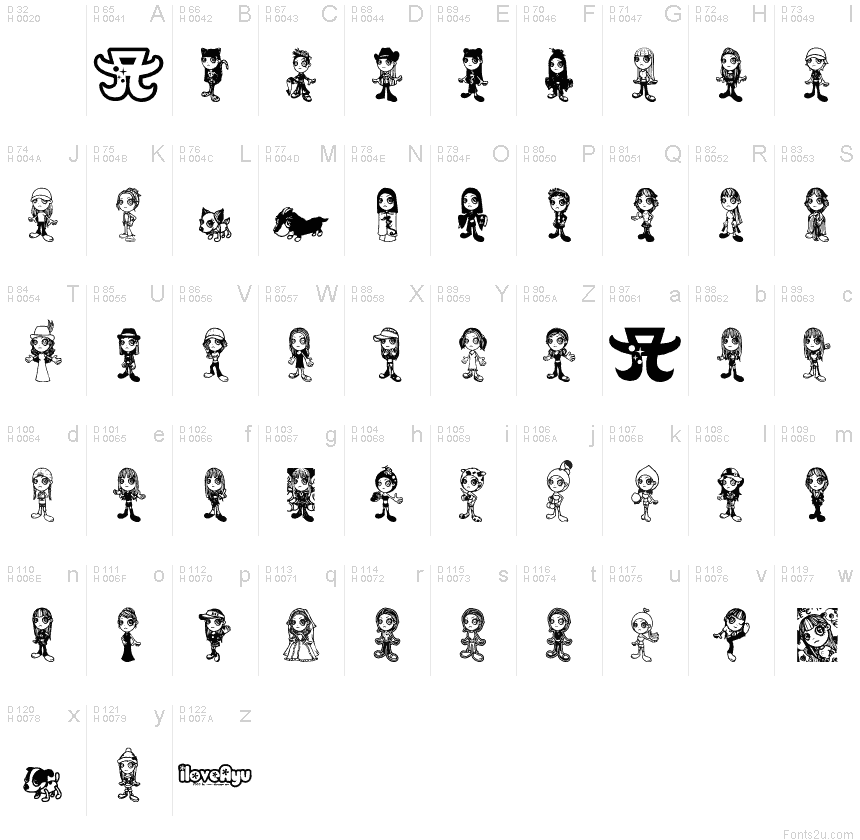
ayupan
Ayupan font is a free Asian-style dingbats typeface that turns your text line into a tiny J‑pop stage. Chunky black symbols with starry accents sit side by side with cute, big‑eyed characters in winter hats, hoodies, and streetwear, giving everything a lively, collectible‑sticker feel. The crisp black‑and‑white drawings reproduce cleanly at small sizes but really pop when blown up for bold icons and borders.
Using Ayupan, this free font shines on fan zines, concert flyers, CD or playlist covers, sticker sheets, character merch, and playful social posts. Each glyph feels like a snapshot from the same manga world, so you can repeat them to build patterns, frames, or character rows. For a simple pairing tip, set your main text in a clean rounded sans serif and drop ayupan in as decorative accents or dividers to keep layouts fun without losing readability.